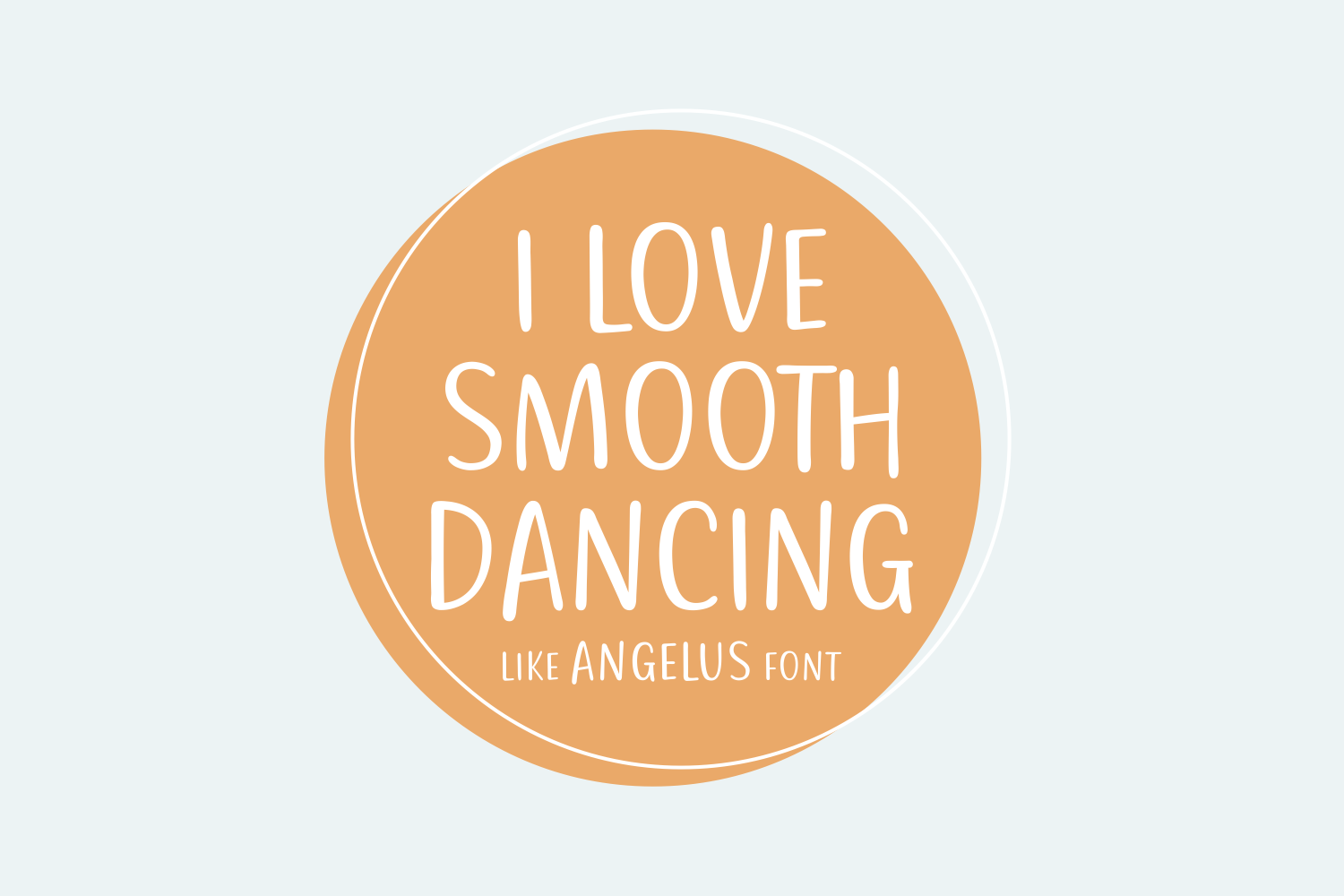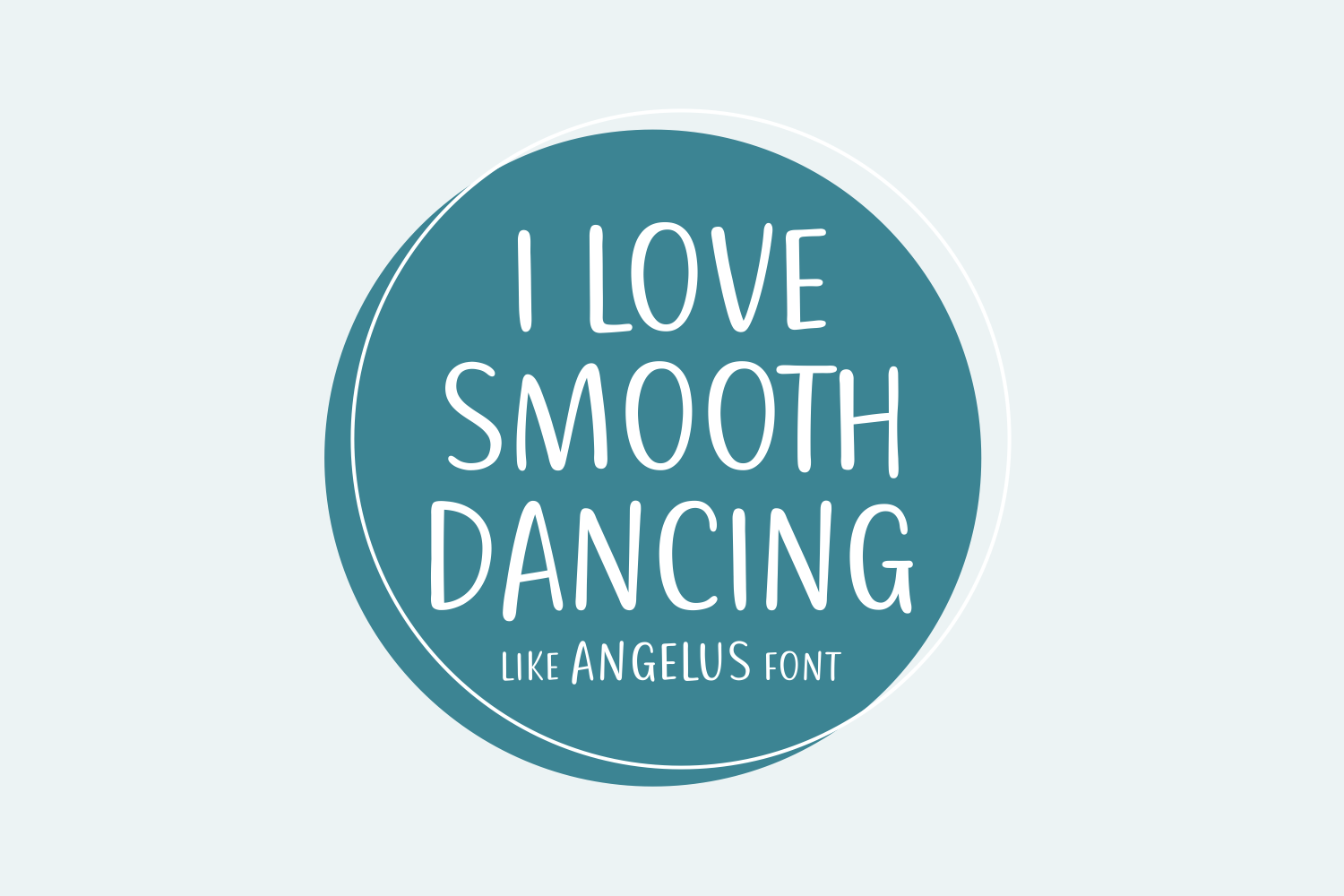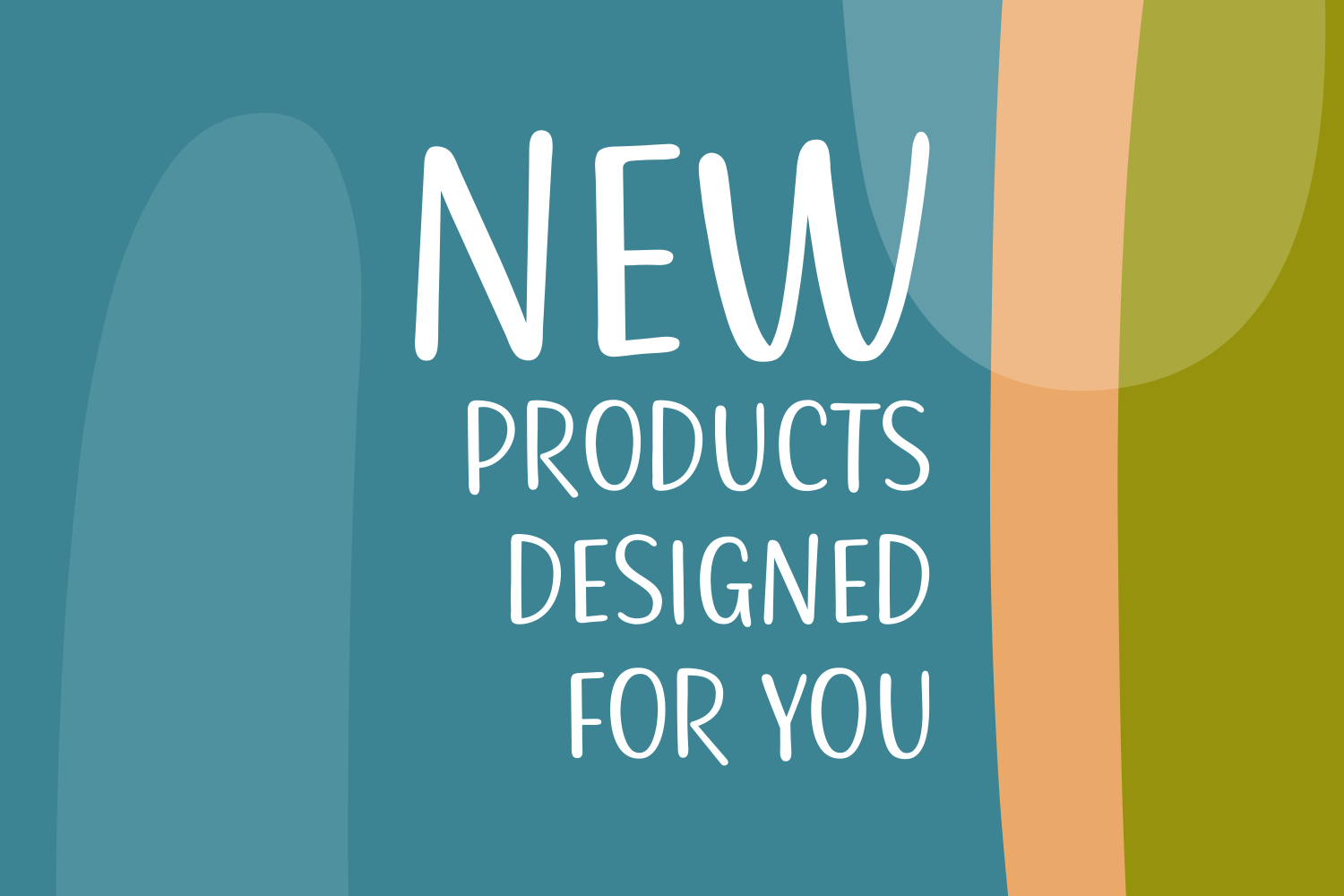
Introducing Angelus Font: A Playful and Smooth Hand-Painted Delight
Are you a designer or crafter looking for a unique and eye-catching font to elevate your creative projects? Look no further than the Angelus Font, a fine hand-painted font that is sure to add a touch of personality and whimsy to your work. In this article, we’ll take a closer look at the Angelus Font, its features, and how it can be used to enhance your designs.
The Story Behind Angelus Font
The Angelus Font was originally created on paper with a brush, giving it a truly hand-crafted feel. The font was then scanned and digitally optimized to ensure that it is smooth, clear, and easy to use. The result is a playful font with an extremely smooth exterior, making it fun to work with and perfect for a wide range of creative applications.
Key Features of Angelus Font
So, what makes the Angelus Font so special? Here are just a few of its key features:
- Hand-painted feel: The Angelus Font has a unique, hand-painted feel that sets it apart from more traditional fonts. Its brush-stroked texture gives it a warm, organic feel that is perfect for creating designs that feel personal and handmade.
- Smooth exterior: Despite its hand-painted origins, the Angelus Font has an extremely smooth exterior that makes it easy to read and use in a variety of contexts.
- Playful personality: The Angelus Font has a playful, whimsical personality that is perfect for designers and crafters who want to add a touch of fun and personality to their work.
- Digitally optimized: The Angelus Font has been carefully scanned and digitally optimized to ensure that it is clear, crisp, and easy to use in a variety of digital contexts.
Using Angelus Font in Your Designs
So, how can you use the Angelus Font in your designs? The possibilities are endless! Here are a few ideas to get you started:
- Invitations and greeting cards: The Angelus Font is perfect for creating invitations, greeting cards, and other paper crafts that require a personal touch.
- Branding and packaging: The Angelus Font can add a touch of personality and whimsy to your branding and packaging, helping to set your products apart from the competition.
- Digital graphics: The Angelus Font can be used to create a wide range of digital graphics, from social media posts to blog headers and more.
- Crafting and DIY projects: The Angelus Font is perfect for crafters and DIY enthusiasts who want to add a personal touch to their projects, from scrapbooking to knitting and more.
Tips for Getting the Most Out of Angelus Font
Here are a few tips for getting the most out of the Angelus Font:
- Experiment with different sizes and colors: The Angelus Font can be used in a variety of sizes and colors, so don’t be afraid to experiment and find the combination that works best for your project.
- Pair it with other fonts: The Angelus Font can be paired with other fonts to create a unique and eye-catching combination.
- Use it to add a personal touch: The Angelus Font is perfect for adding a personal touch to your designs, so don’t be afraid to use it to add a bit of personality and whimsy.